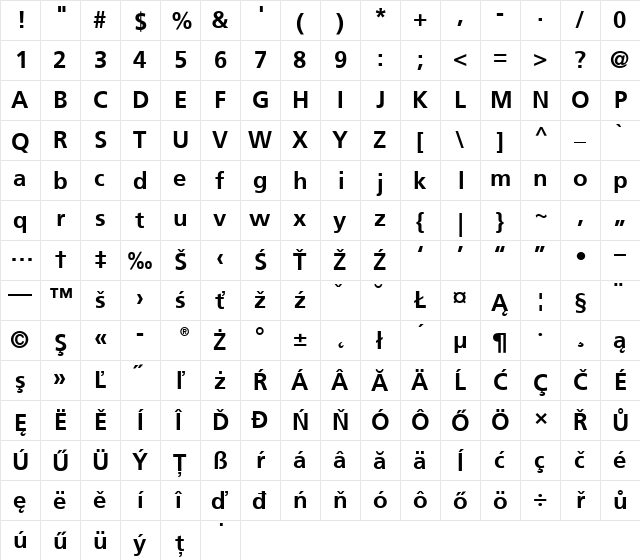
Frutiger CE 45 Light Bold
Design Context for Frutiger CE 45 Light Typeface
Frutiger CE 45 Light takes a measured approach to typography — its balanced proportions and neutral character make it a reliable workhorse for both digital and print work. The heavy weight commands attention and anchors typographic hierarchies.